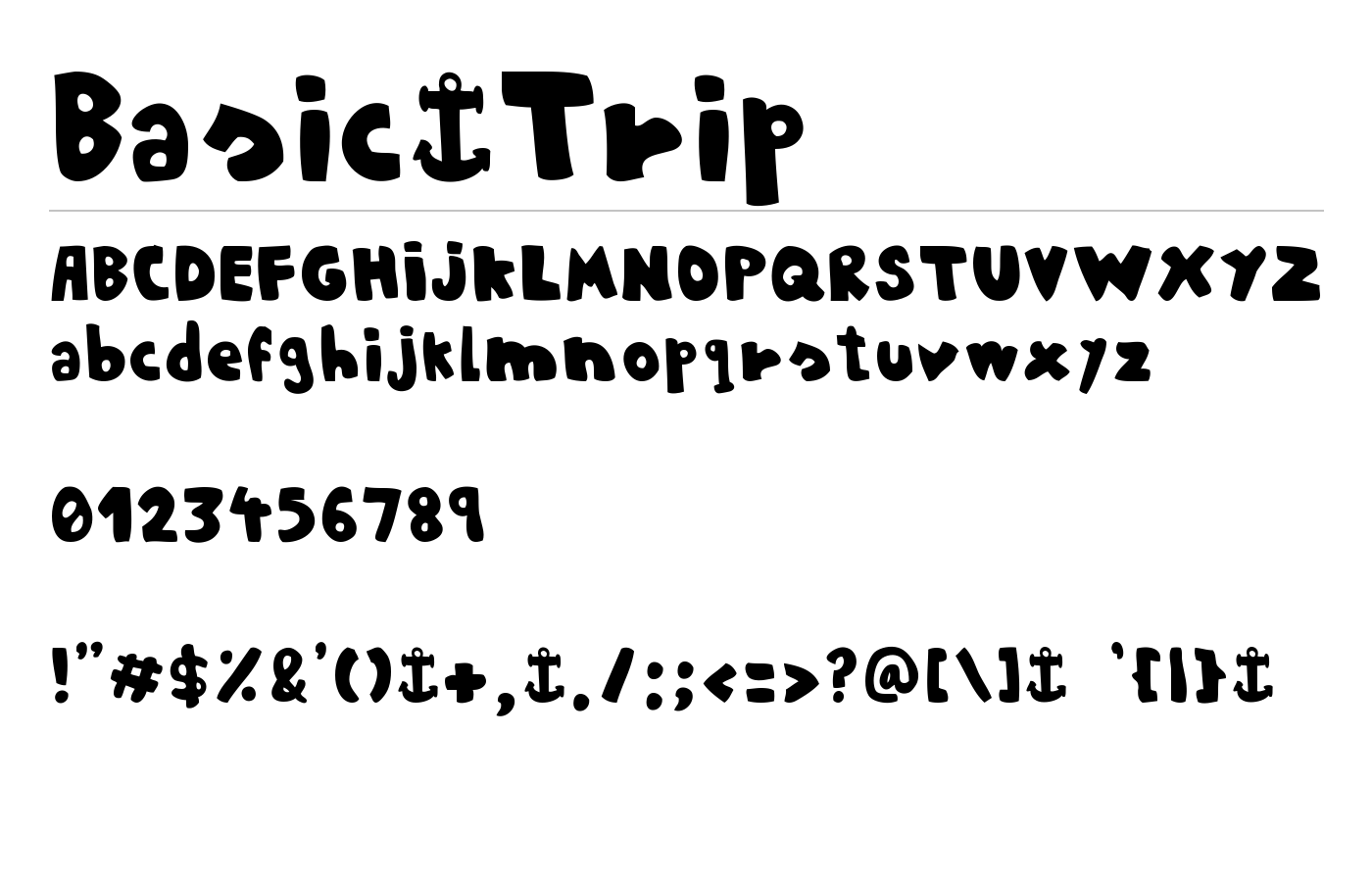
Basic-Trip is a playful, bold sans serif font with a quirky, hand-drawn feel that adds character and fun to any design. Its irregular shapes and uneven strokes create a casual, approachable style perfect for children's books, informal branding, or creative projects seeking an energetic and friendly vibe. This font works best in headlines, logos, and designs that want to convey creativity and lightheartedness.
Basic-Trip Font
About Basic-Trip Font